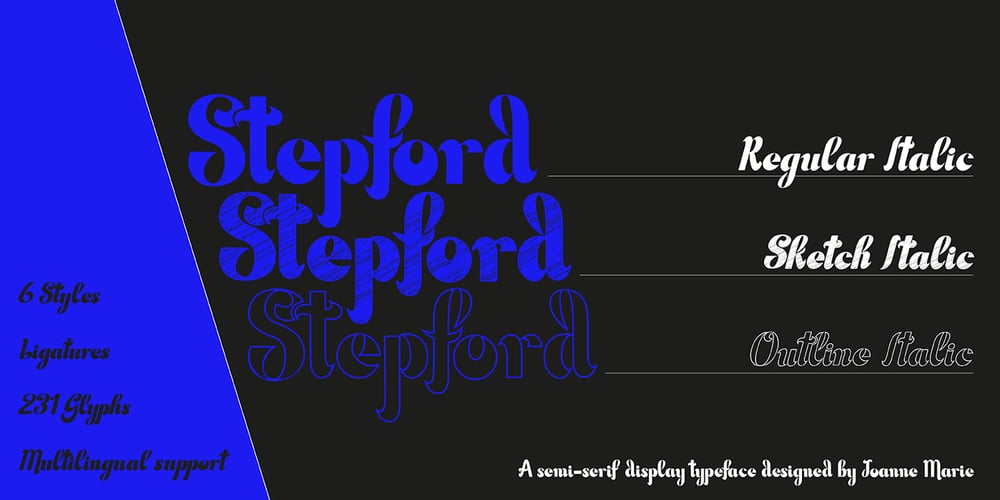
Stepford
Stepford font
Stepford Font Family was designed by Joanne Hewitt and published by Joanne Marie. Stepford contains 6 styles and family package options. A typographic playgroundStepford is a versatile semi-serif boasting 6 styles – regular and italic, sketch and italic and outline and italic. It includes 231 glyphs, ligatures and multilingual support.These six styles make it the perfect display typeface for any kind of project. Absolutely sweet for editorial design – mainly headers and sub-headers but can also be used for body text too.This typographic trio is based on the vintage 50’s and 60’s style scripts and modernised for the present day.It’s another powerful typeface to add to your arsenal of design assets that command attention. That’s what design is all about!For regular updates and freebies follow me on Instagram at joannemarie_cm